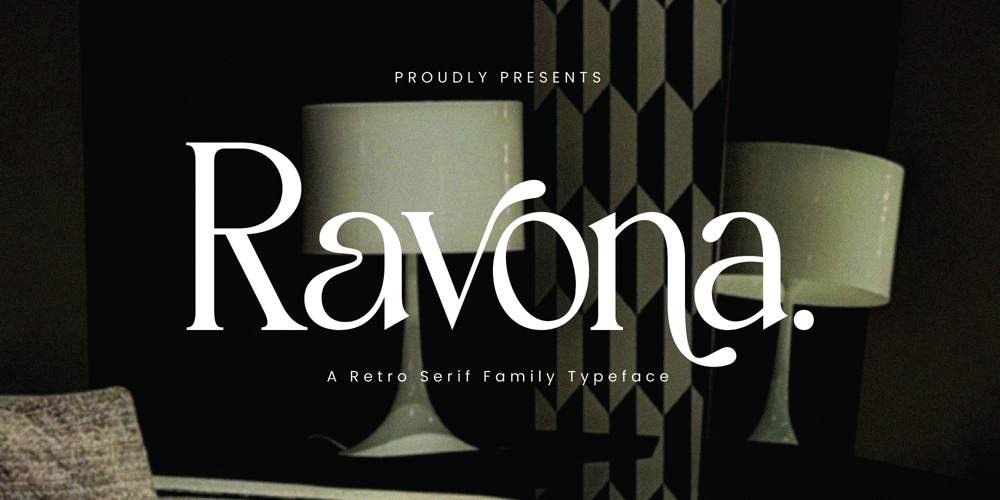
Ravona Font Family was designed by Achmad Yani and published by Flawlessandco. Ravona contains 7 styles and family package options. Ravona – Retro Serif Family Font, Serif Font, Retro Font, Magazine Font, News Paper Font, Modern Font, Elegant Font, Modern Font Canva Font, Cricut Font, Procreate Font, Branding Font, Logo Font.Introducing “Ravona – Retro Serif Family Font”. Dive into the diverse world of typography with “Ravona”, a comprehensive typeface that goes beyond conventional limits. This font family is a symphony of styles, offering Thin, Extra Light, Light, Regular, Medium, Semi-Bold, and Bold variants, allowing you to craft designs that resonate with precision and personality.Keywords: Font Family, Serif Font, Family SerifThere’s some connected letters and some alternates that suitable for any graphic designs such as branding materials, t-shirt, print, business cards, logo, poster, t-shirt, photography, quotes .etcThis font support for some multilingual. Also contains uppercase A-Z and lowercase a-z, alternate character, numbers 0-9, and some punctuation.If you need help, just write me! Thanks so much for checking out my shop!